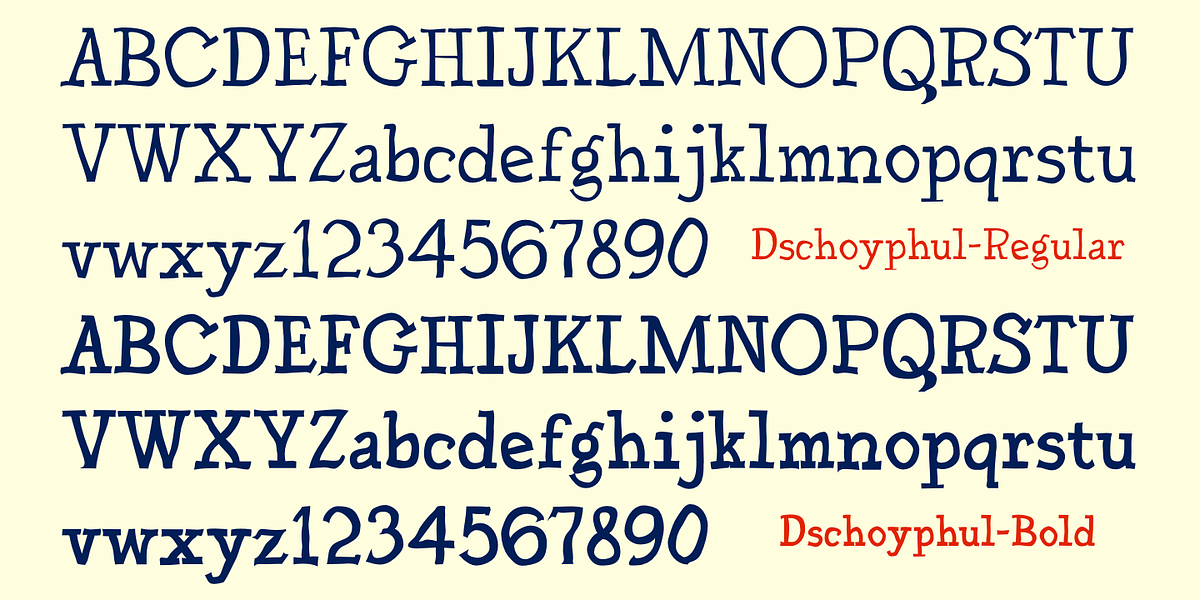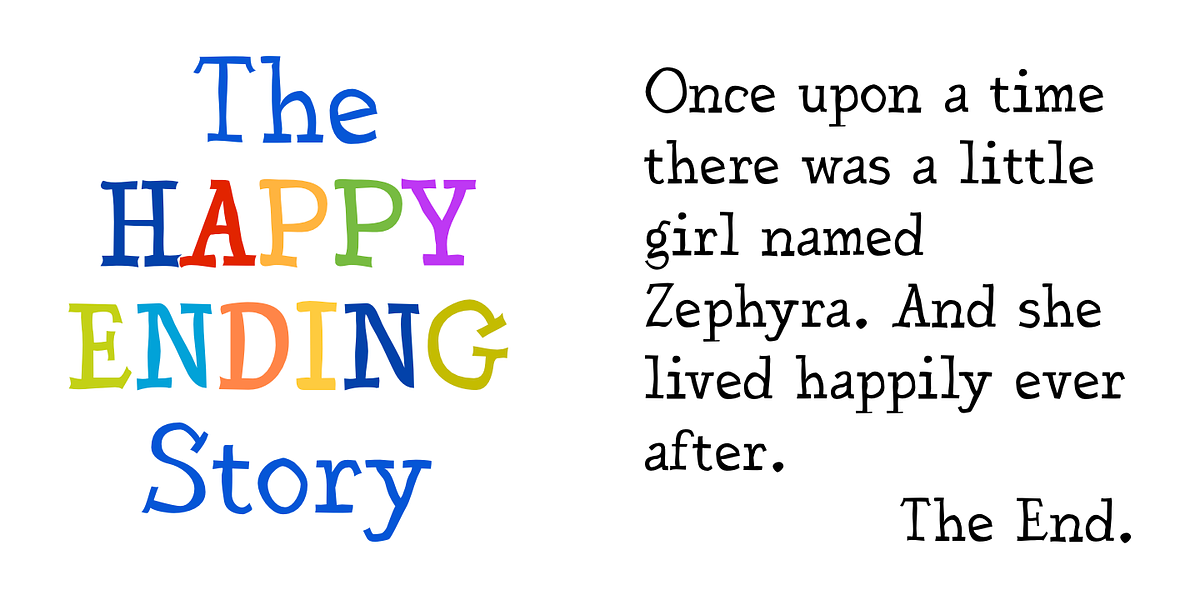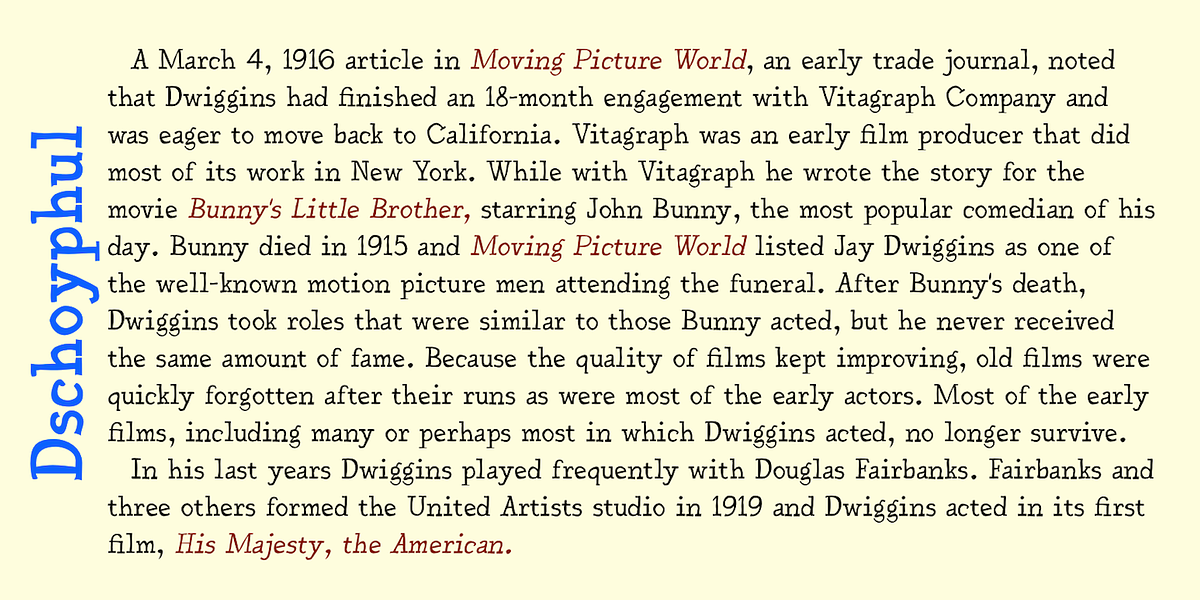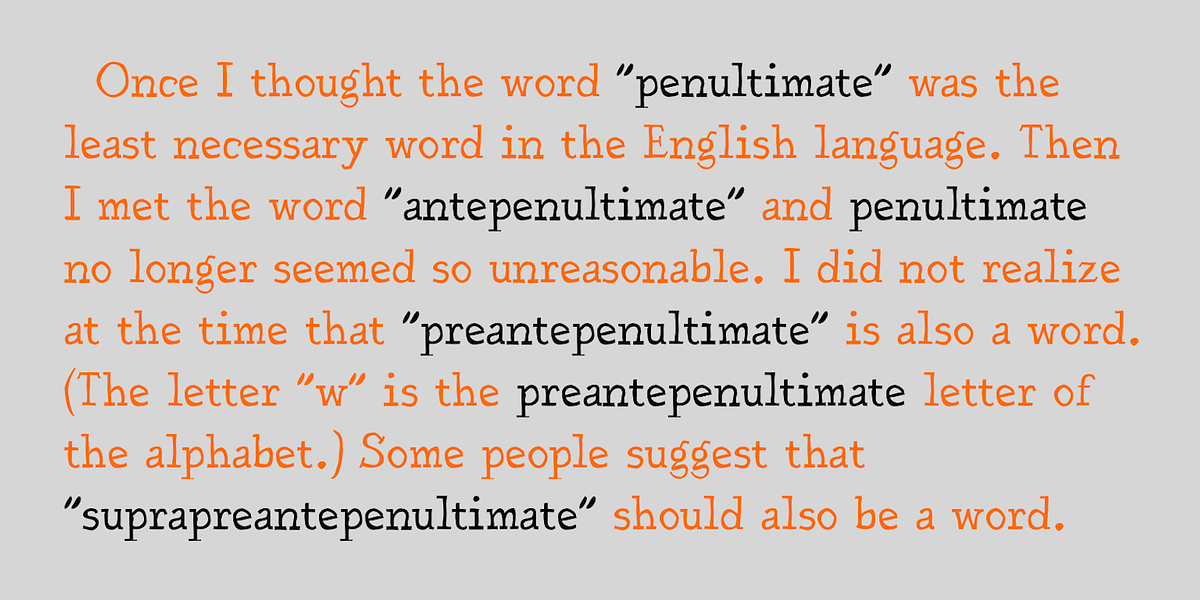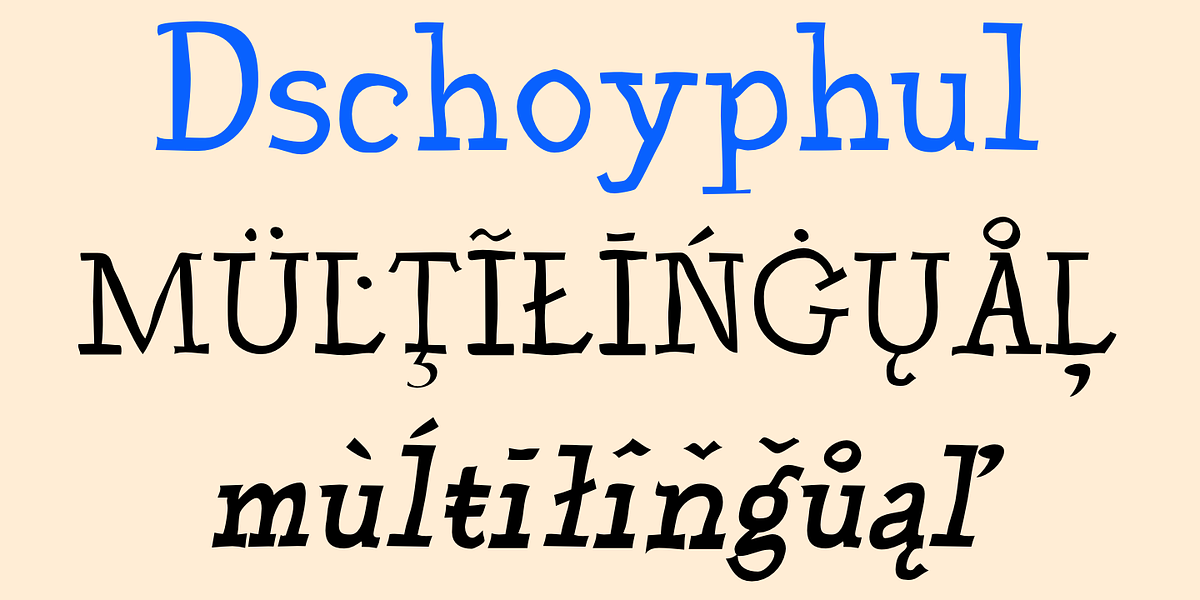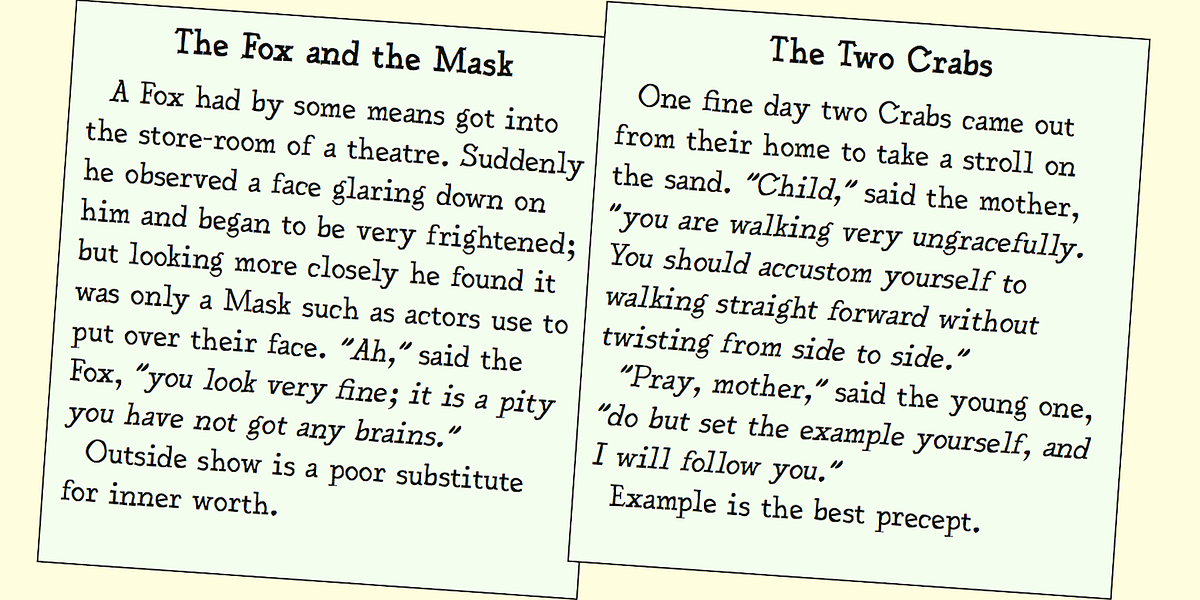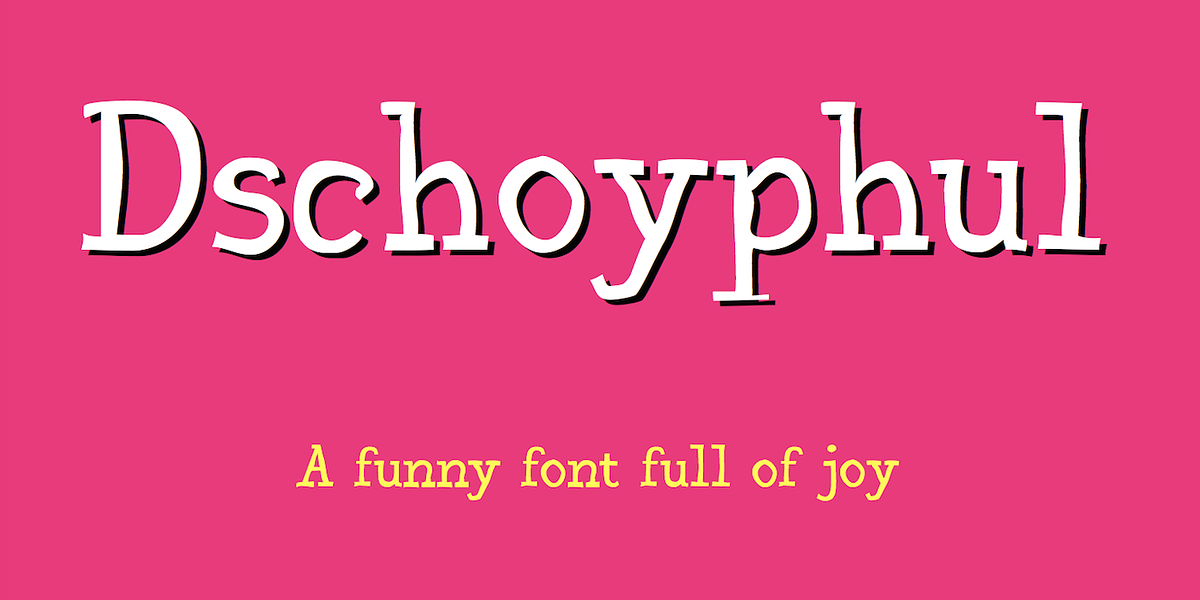
Dschoyphul
Dschoyphul is a serif font characterized by its crude and uneven hand-drawn aesthetic. Despite its seemingly sloppy appearance, it maintains surprising readability even at smaller sizes. The font family offers four styles: regular, bold, oblique, and bold oblique, providing versatility for various applications.